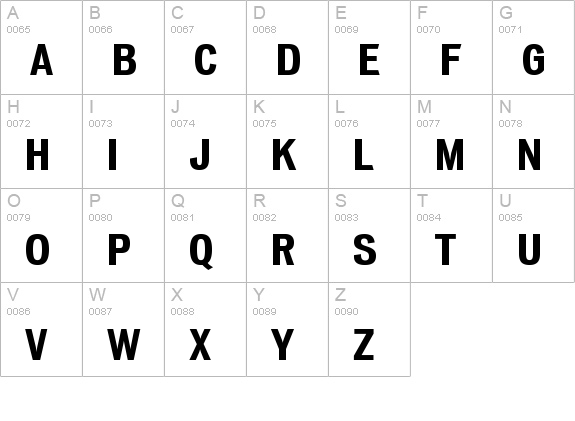
VonnesTTBoldCond Font Details
VonnesTTBoldCond is an exquisite and captivating font that effortlessly blends modernity with a touch of elegance. This font is sure to leave a lasting impression with its bold and condensed design, making it perfect for various design projects that require a stylish and impactful look. VonnesTTBoldCond stands out from the crowd with its strong and confident letterforms. Each character is meticulously crafted, showcasing clean lines and sharp edges that exude professionalism and sophistication. Whether used for headlines, logos, branding materials, or any other creative endeavors, this font is bound to elevate your designs to new heights. What makes VonnesTTBoldCond even more appealing is that it is available for free. Yes, you read that right! This remarkable font can be freely downloaded from FontsMarket.com. With just a few clicks, you can enhance your design arsenal and unlock endless possibilities for your projects, without having to spend a dime. FontsMarket.com is a trusted source for quality fonts, and VonnesTTBoldCond is no exception. By offering this font for free, FontsMarket.com ensures that designers, creatives, and enthusiasts from all walks of life can access and enjoy the beauty of this exceptional typeface. So, why wait? Take advantage of this incredible opportunity and download VonnesTTBoldCond from FontsMarket.com today. Unleash your creativity and let this font be the catalyst for stunning and memorable designs that will leave a lasting impression on your audience.